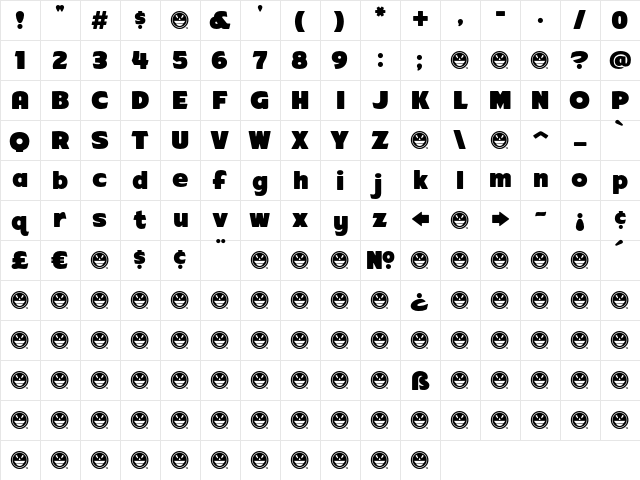
ARB-218 Big Blunt MAR-50 Regular
Design Context for ARB-218 Big Blunt MAR-50 Typeface
ARB-218 Big Blunt MAR-50 takes a measured approach to typography — its balanced proportions and neutral character make it a reliable workhorse for both digital and print work.
Pro Tip: Pair ARB-218 Big Blunt MAR-50 with a font of contrasting weight or personality to build a more expressive typographic hierarchy.